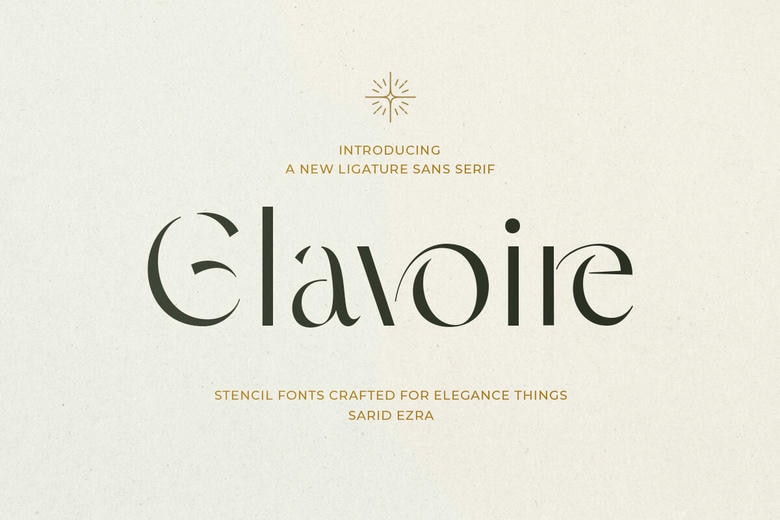
Glavoire Font
Glavoire is a stunning ligature sans serif font. This font is the embodiment of a new-age classics, the simple lines of a modern day san serif and the elegant touch of the dainty stencil cuts. Famous with its distinctive and flowing ligatures, and fashionable style,
Glavoire is designed to create things that are elegant, so it is the best option when it comes to luxury branding, high-end editorial designs, perfume boxes, and boutique signs. The rhythmic nature of its letterforms and calculated negative space transforms each headline into a work of high contrast art.
Glavoire Sans Serif Font